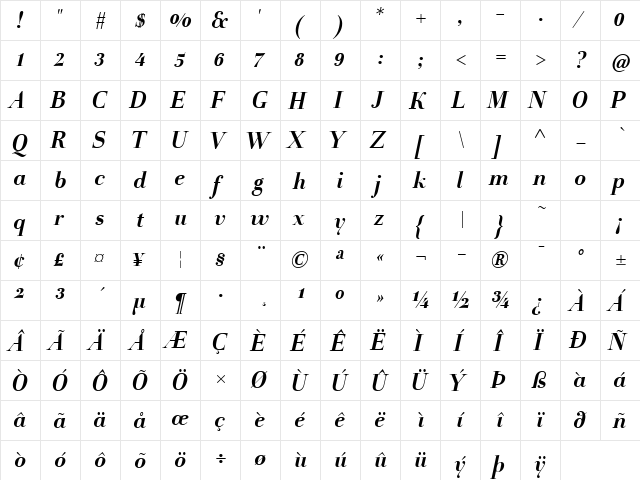
HolmenLF-BoldItalic Regular Font Preview
| Foundry | FSI FontShop International GmbH |
| Designer | Per Jorgensen |
Design Context for HolmenLF-BoldItalic Typeface
HolmenLF-BoldItalic offers clean, dependable letterforms without strong stylistic allegiance, making it a practical choice for designers who need flexibility. The slanted form adds forward momentum and visual energy. The heavy weight commands attention and anchors typographic hierarchies.
Pro Tip: Try HolmenLF-BoldItalic for annotation and caption copy alongside an upright companion — the contrast in angle creates a dynamic but ordered typographic system.